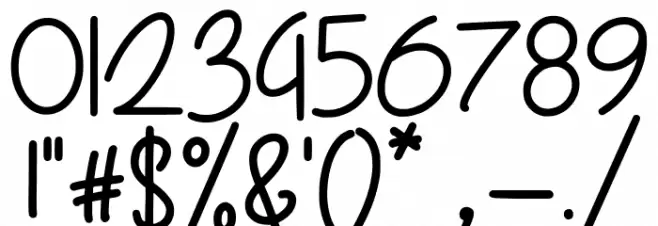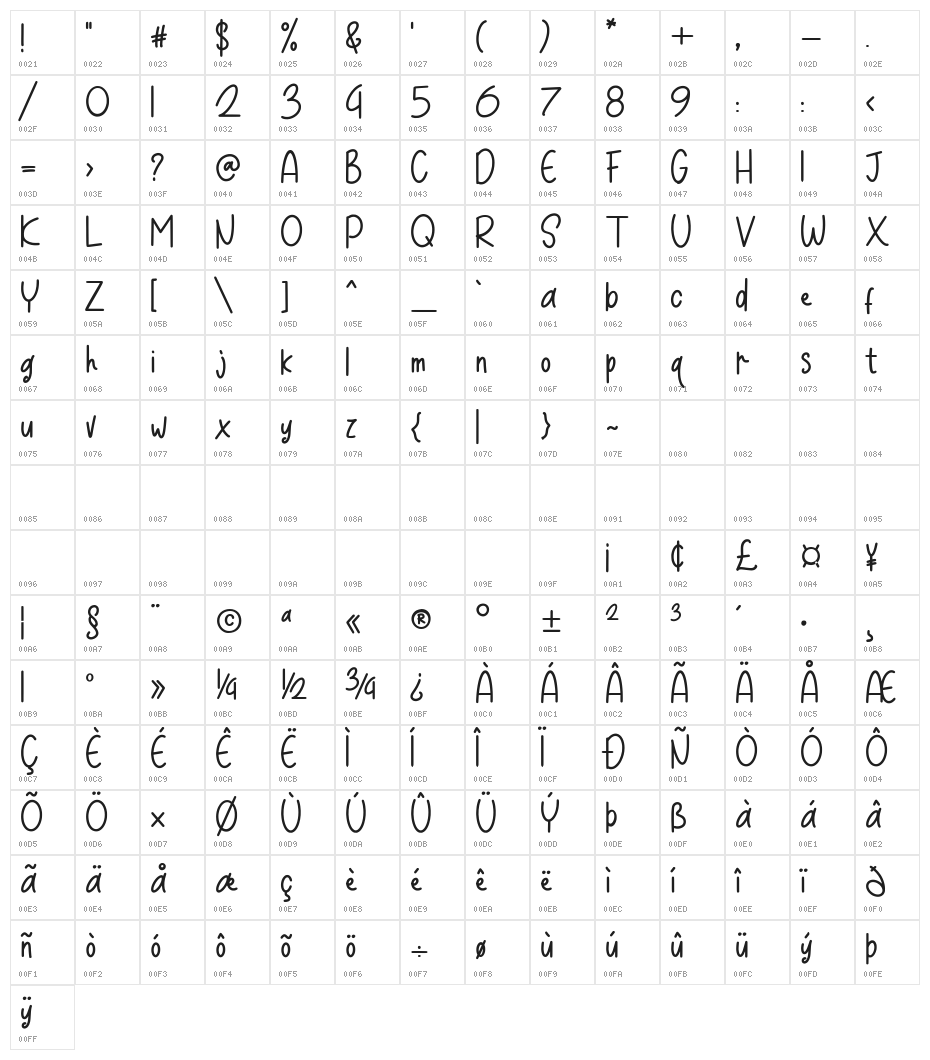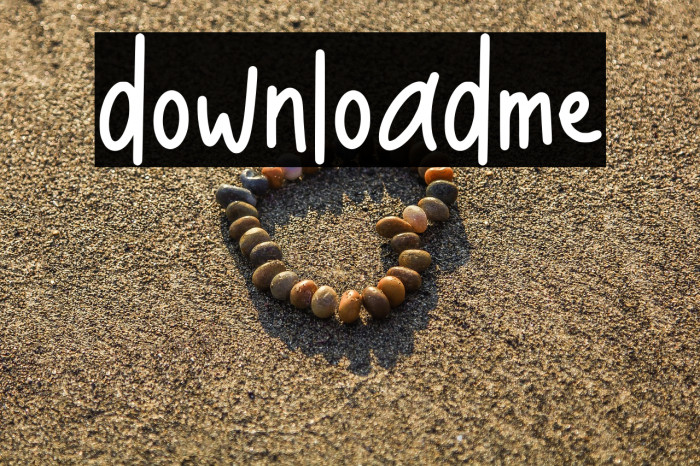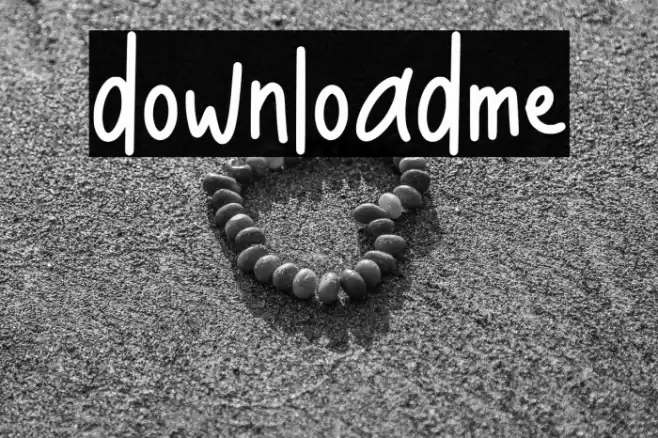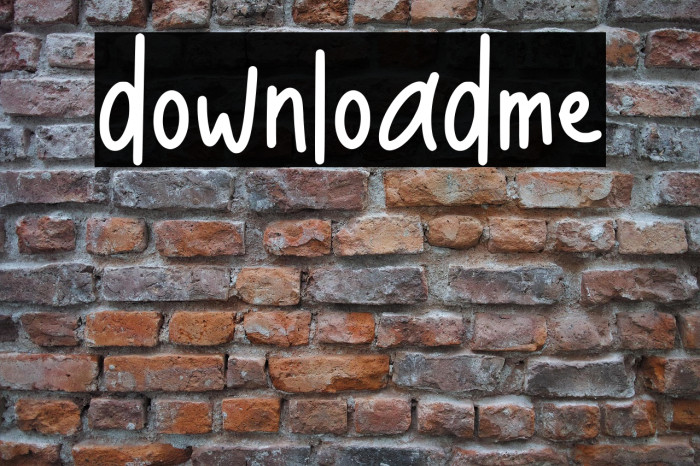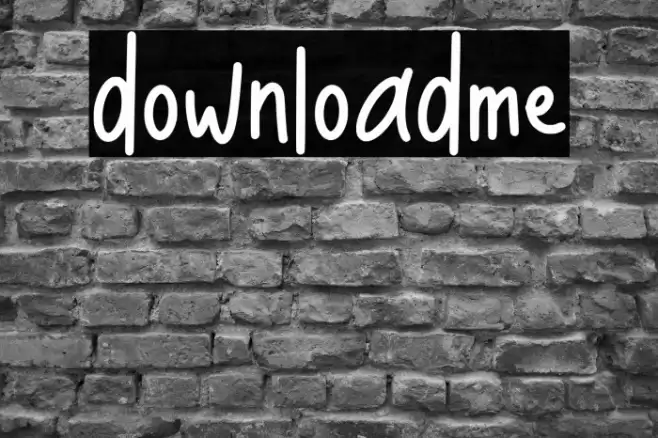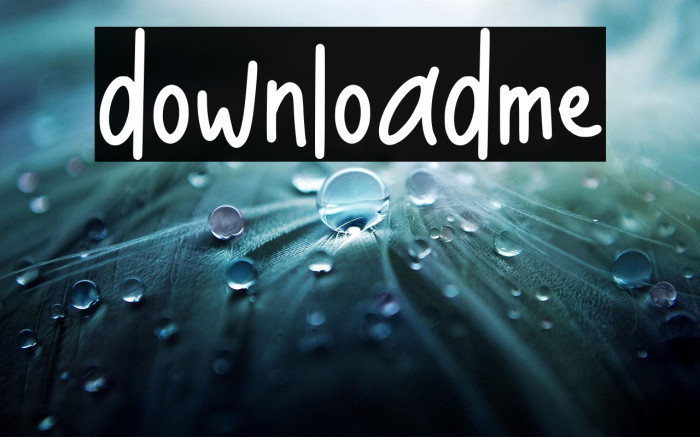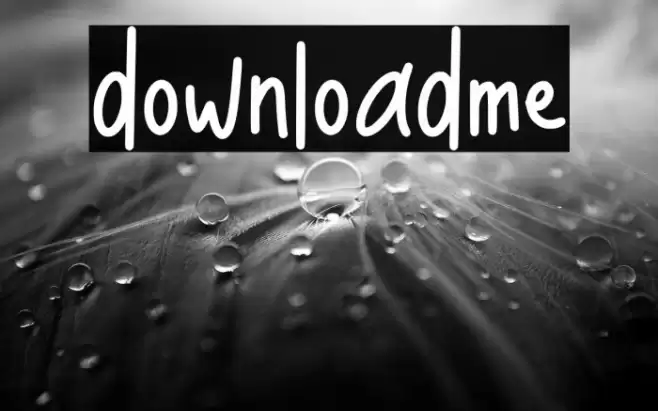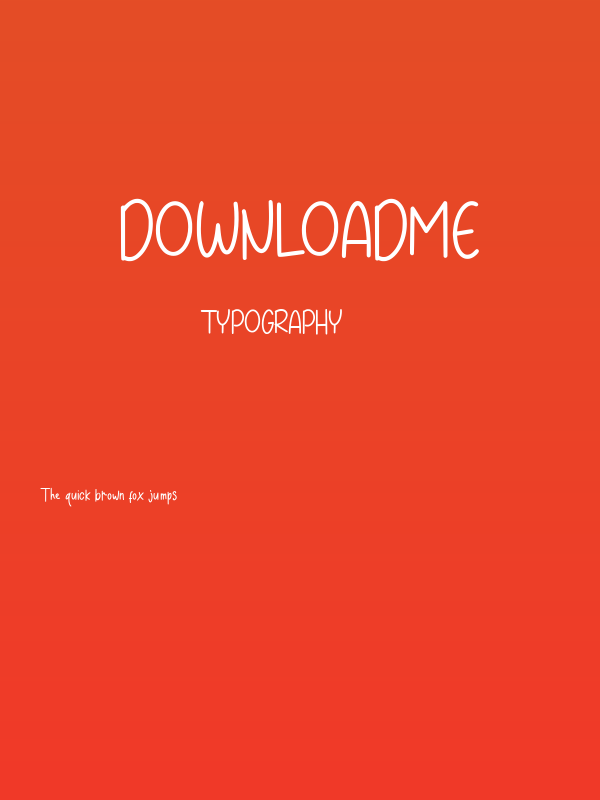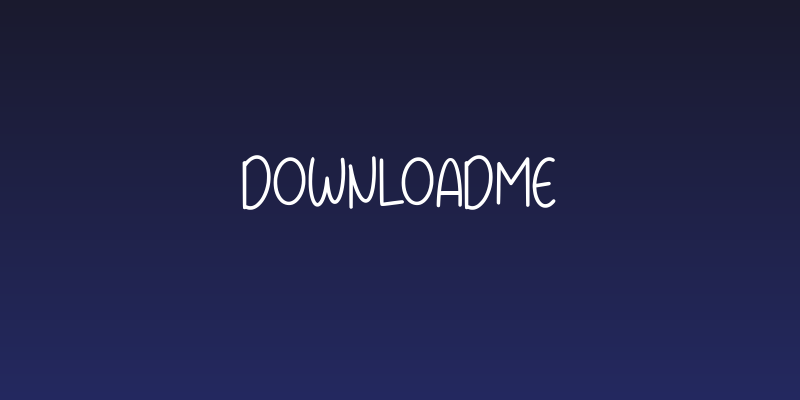
downloadme Font
downloadme Description
This font features a playful and casual handwritten style, characterized by its smooth, rounded edges and slightly uneven baseline, which gives it a friendly and approachable appearance. The letters are tall and narrow, with a consistent stroke width that maintains readability while adding a touch of whimsy. The uppercase letters are bold and prominent, while the lowercase letters maintain a consistent flow, enhancing the font's legibility. Numbers and special characters are crafted with the same playful style, making them suitable for a variety of informal contexts.
| Use Case | Headlines, Informal text, Branding |
| Proposed Projects | Ideal for children's books, greeting cards, casual branding, and social media graphics. |